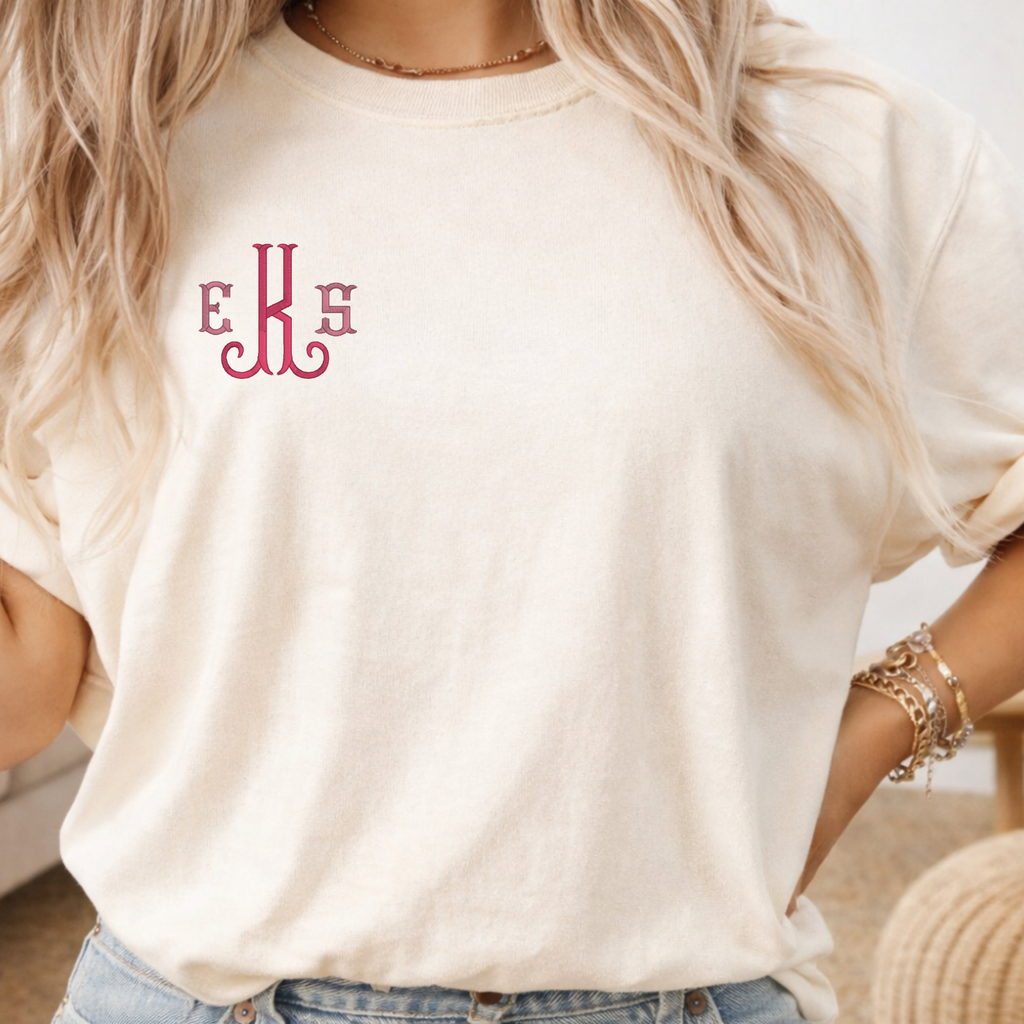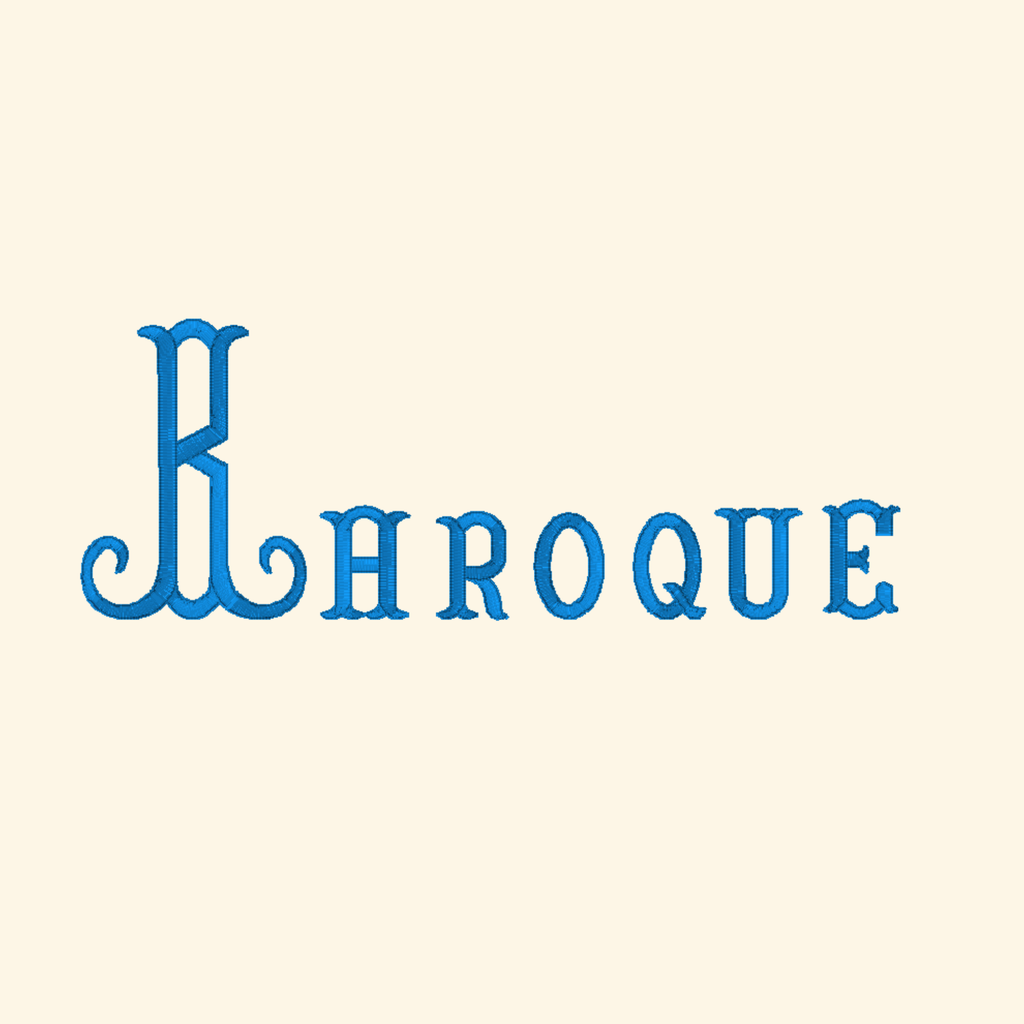
🪡Baroque classic monogram - premium embroidery font.
Take your projects to the next dimension with this professional machine embroidery alphabet! Specially digitized for high-impact results, this font is the perfect choice for creating any item that requires embroidery.